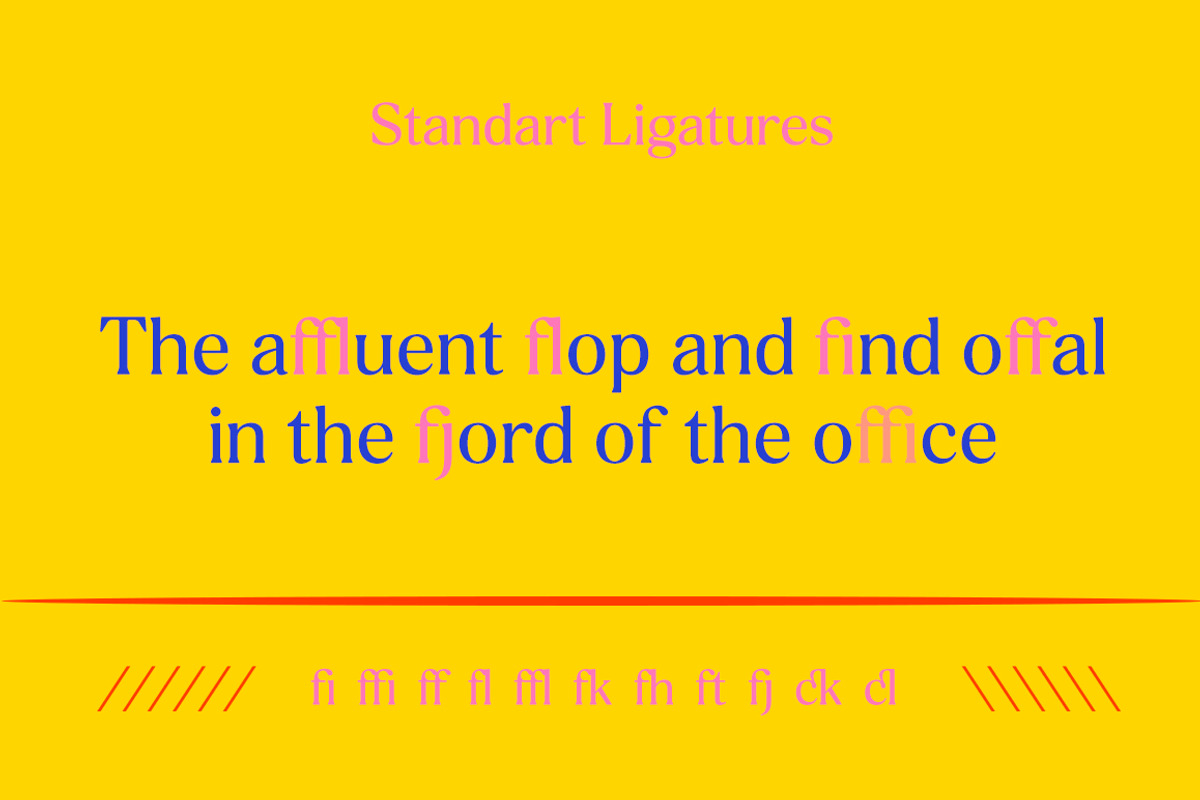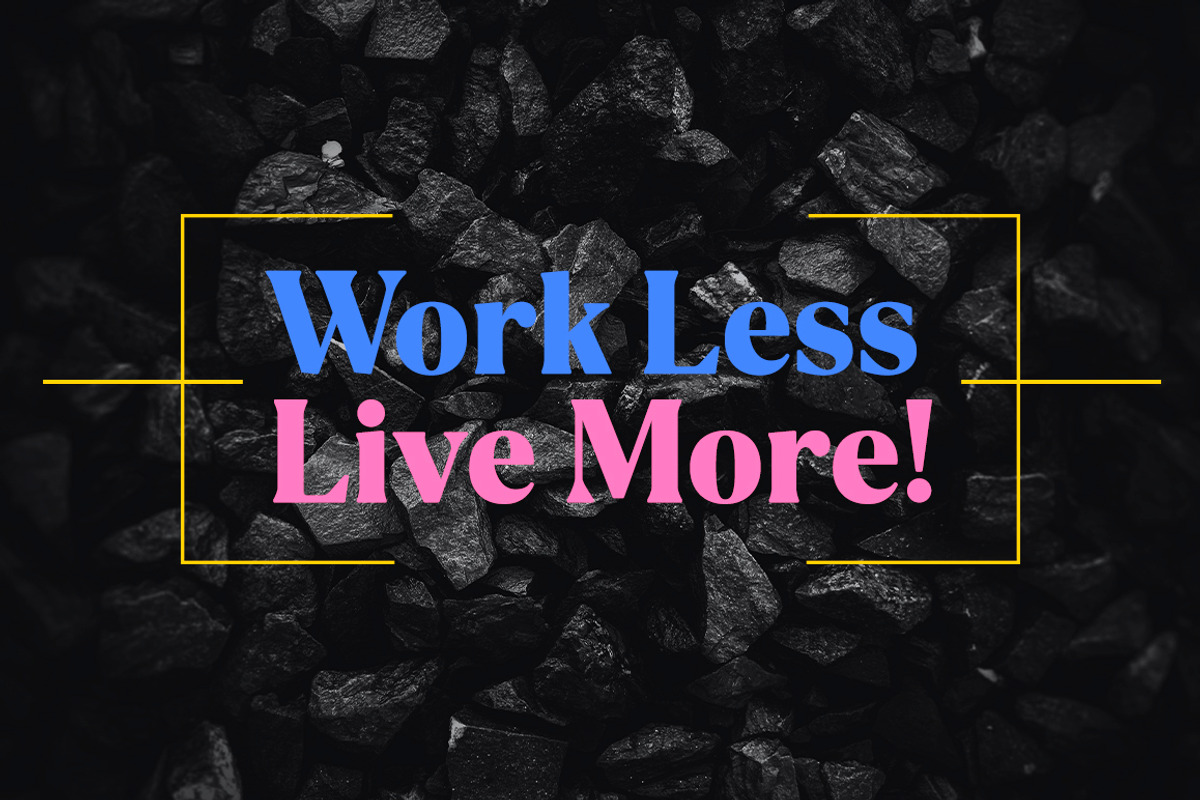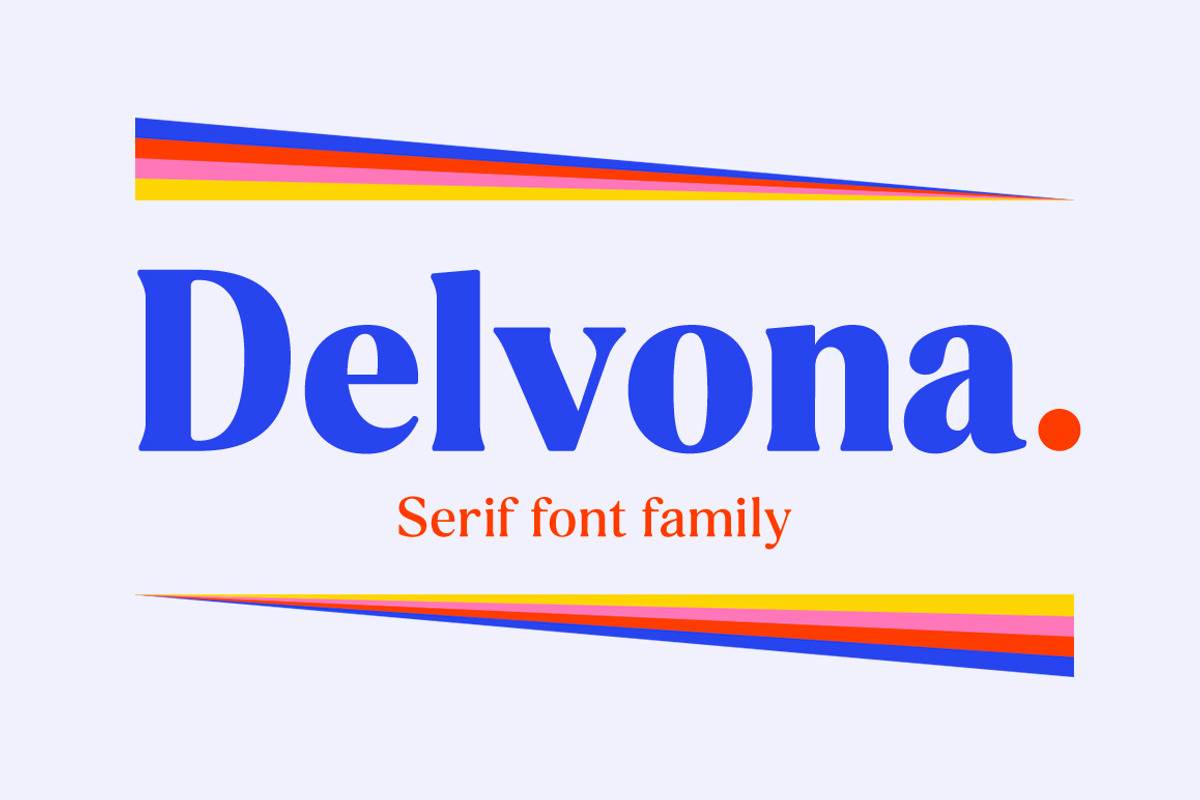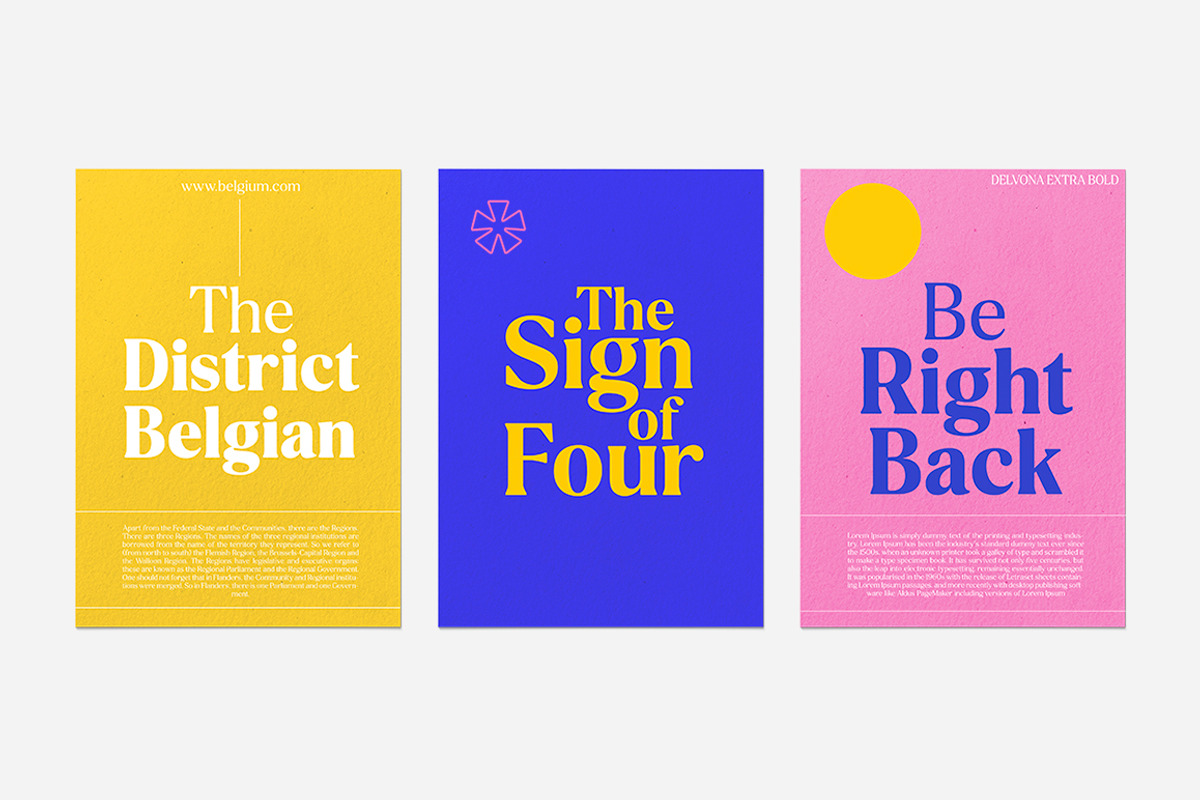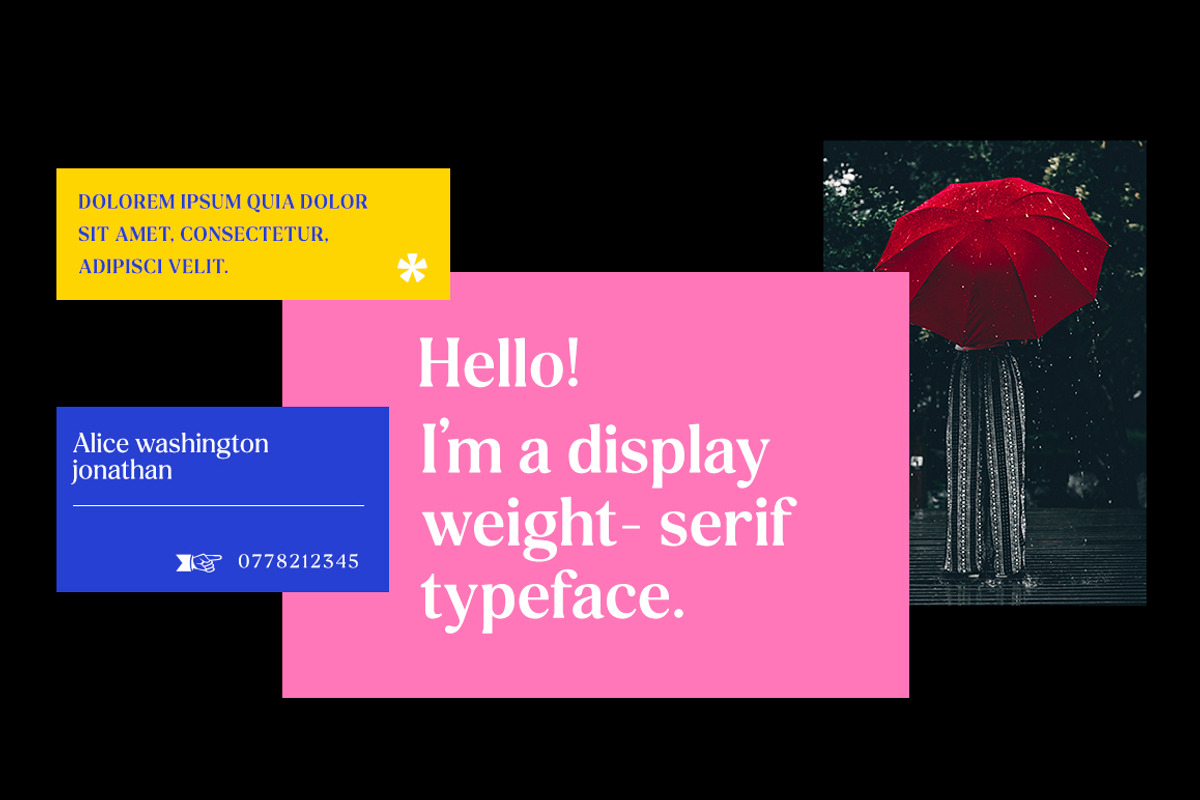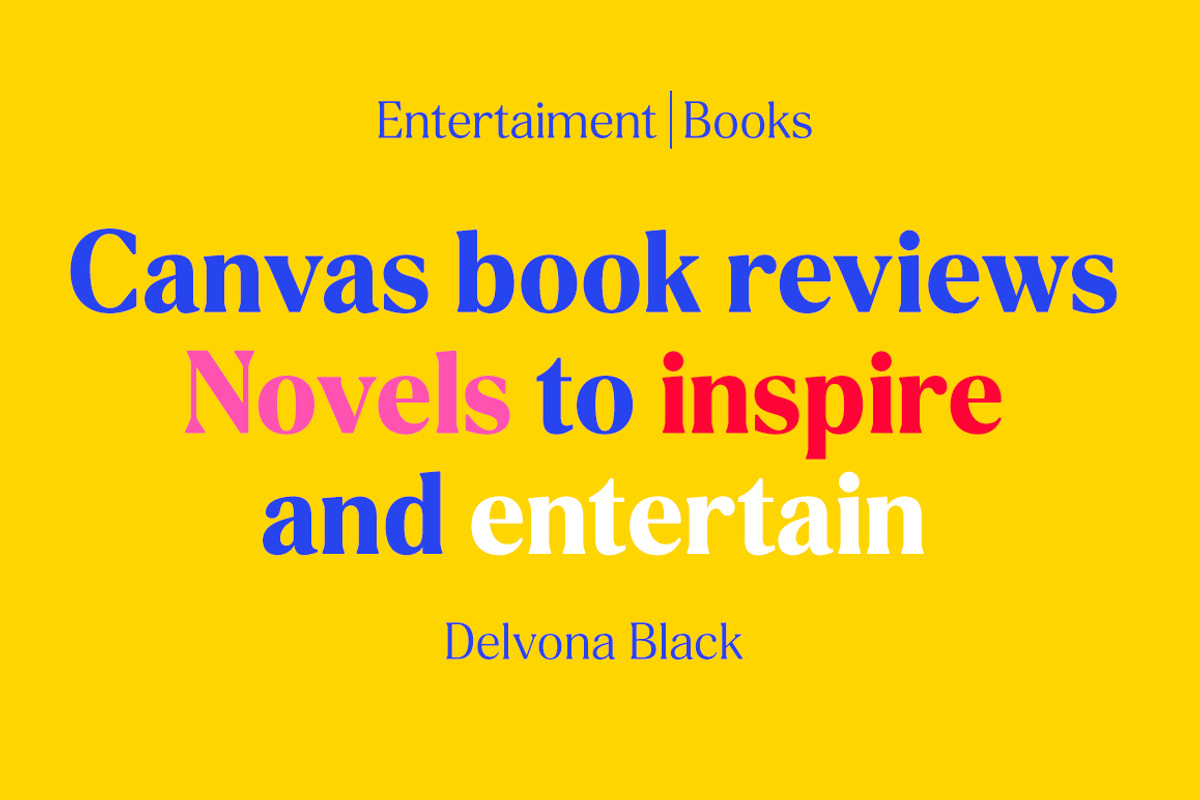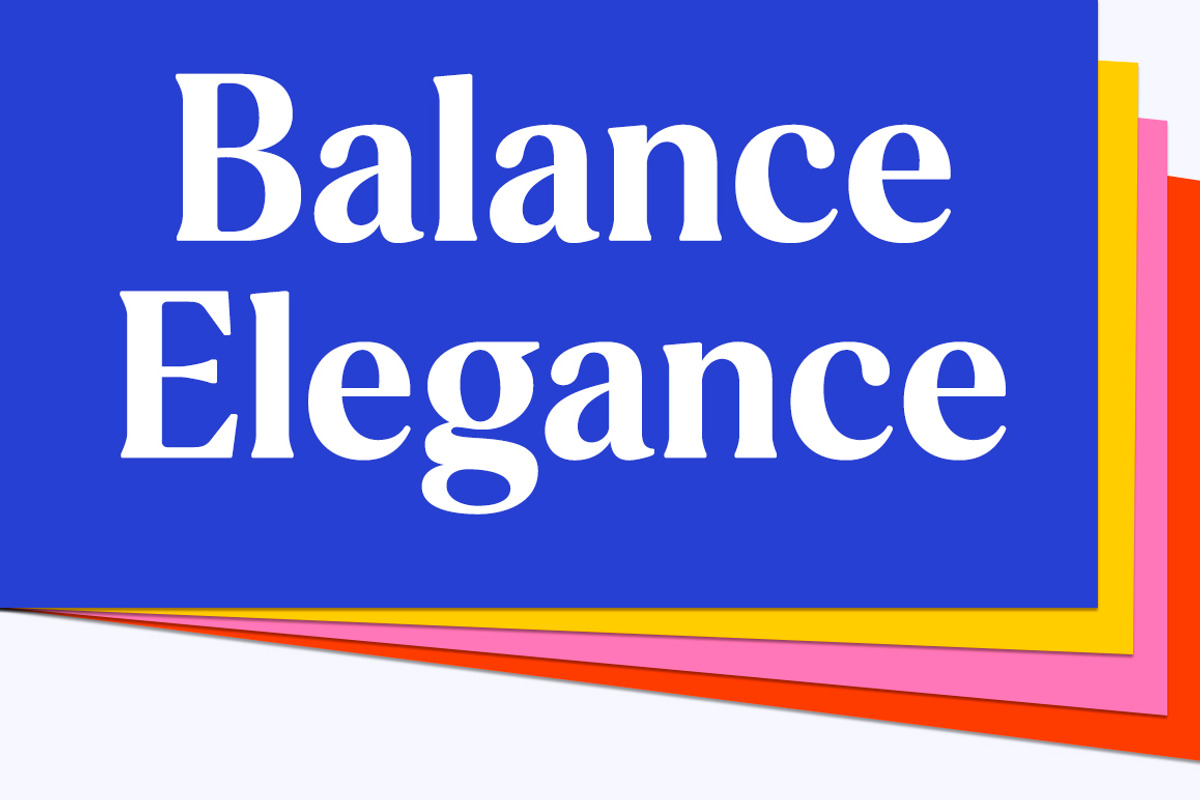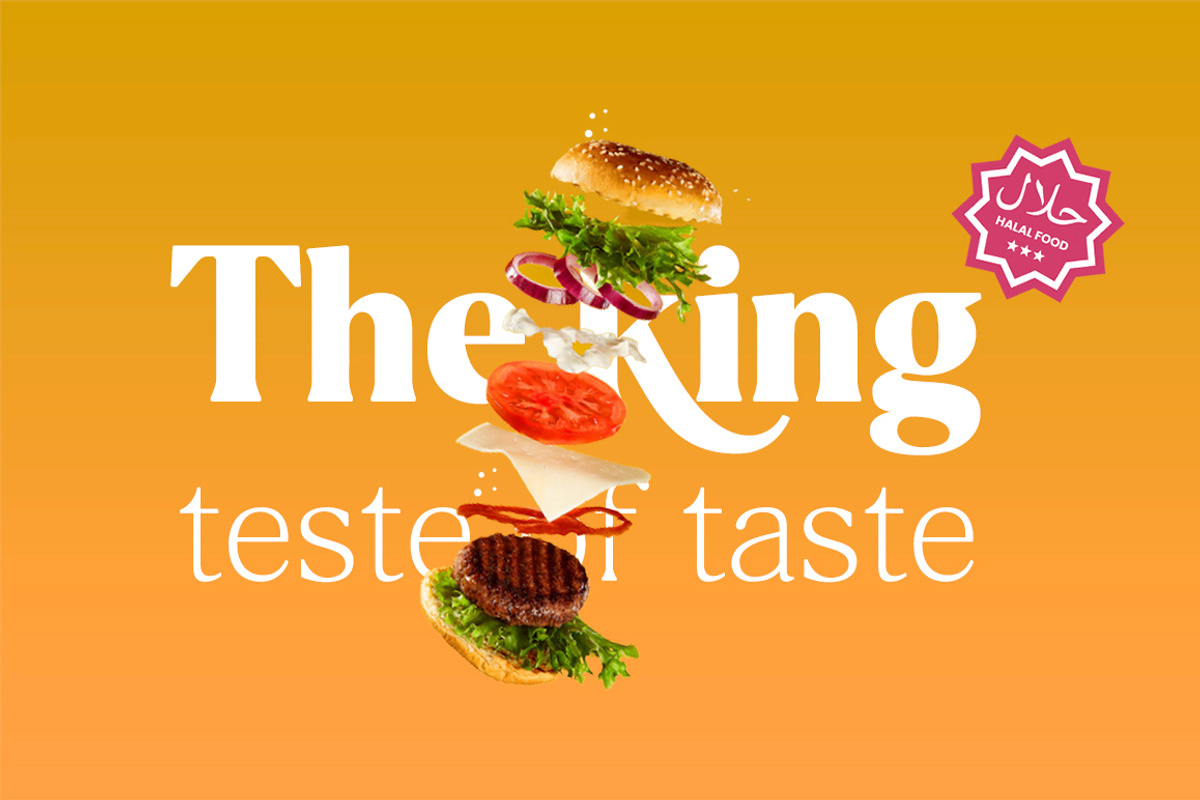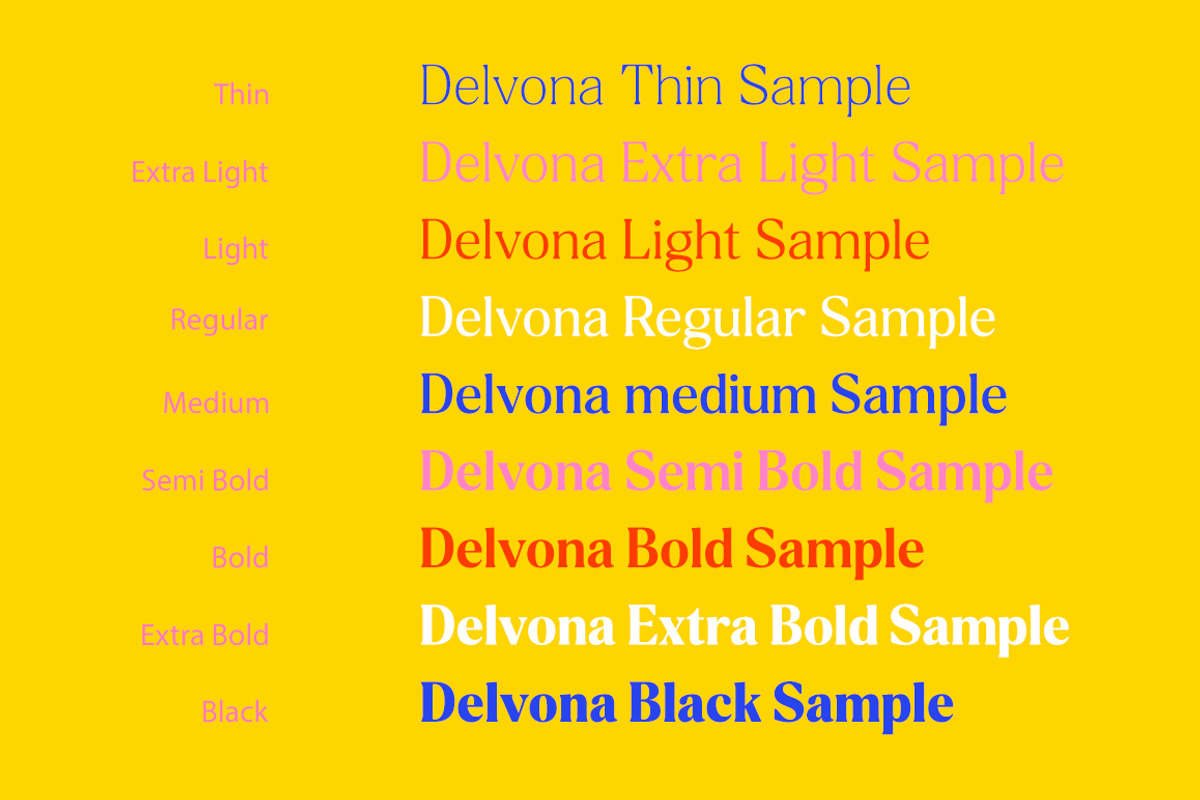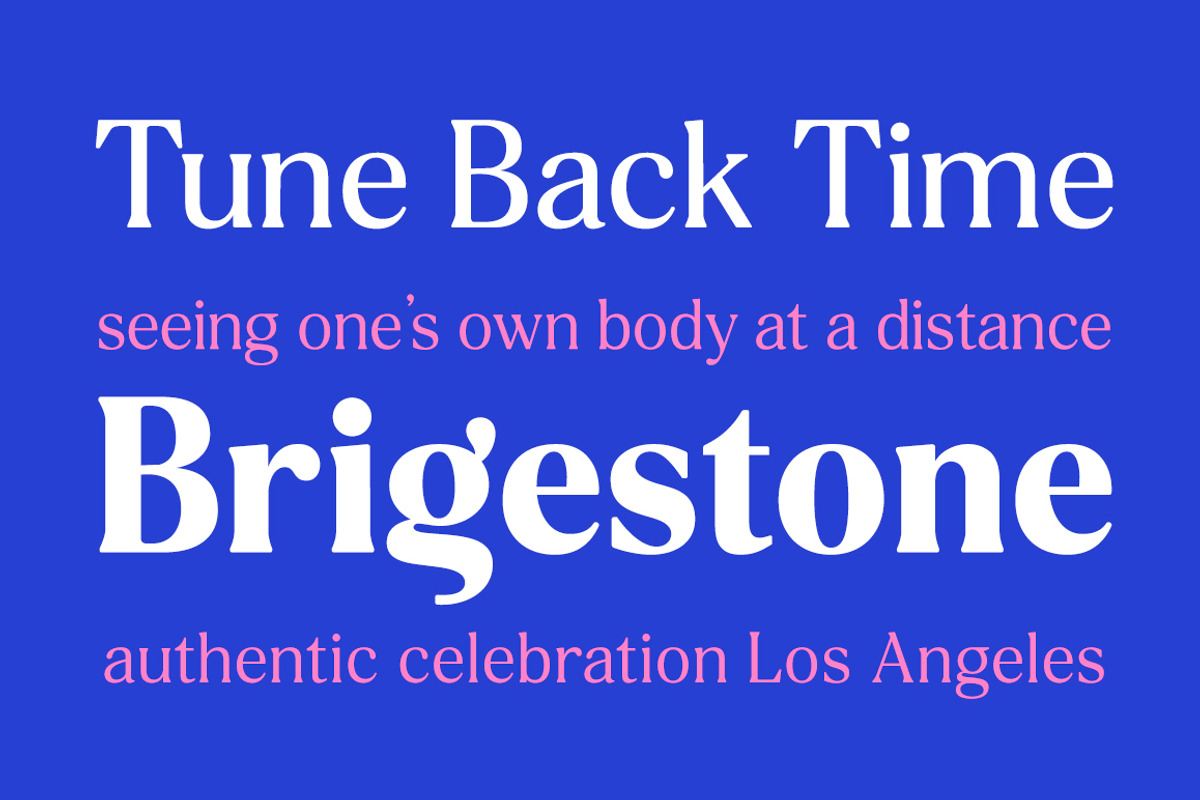
Delvona Serif Family
Delvona is a contemporary serif typeface, retro styled with a strong personality and a soft look. And also its high contrast and very simple and easily recognizable shape make it very easy to read. Delvona was inspired by the serif typography used in editorial headlines in the 80s.
Delvona excels in display settings such as headlines, titles, branding projects, Logo design, packaging, magazine titles, advertisements, short or long text.